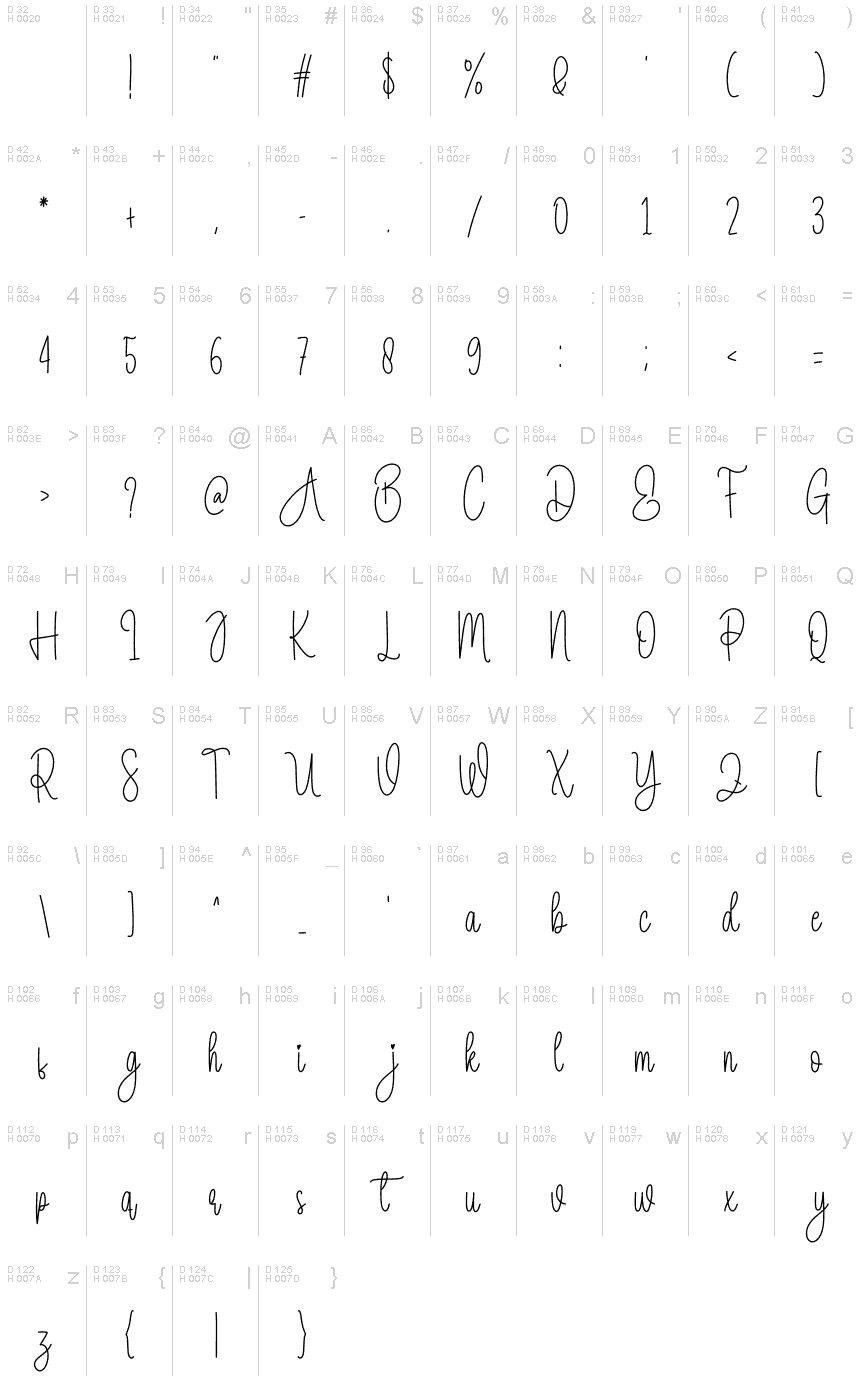
Winter Night
Winter Night, designed by Scratchones, embodies the charm of a handwritten note with its semi-light weight and extra-condensed width. This font captures the essence of personal touch through its fluid, cursive style that seems to dance across the page like a delicate snowflake on a winter evening. The gentle curves and elegant strokes of Winter Night make it an excellent choice for invitations, branding, and creative projects where a touch of intimacy and sophistication is desired. Its aesthetic appeal lies in its ability to convey warmth and originality, making any text appear beautifully crafted and full of character.
Whether used for festive occasions or as an accent in artistic compositions, Winter Night brings a unique flair that enhances the visual storytelling of any project it graces.